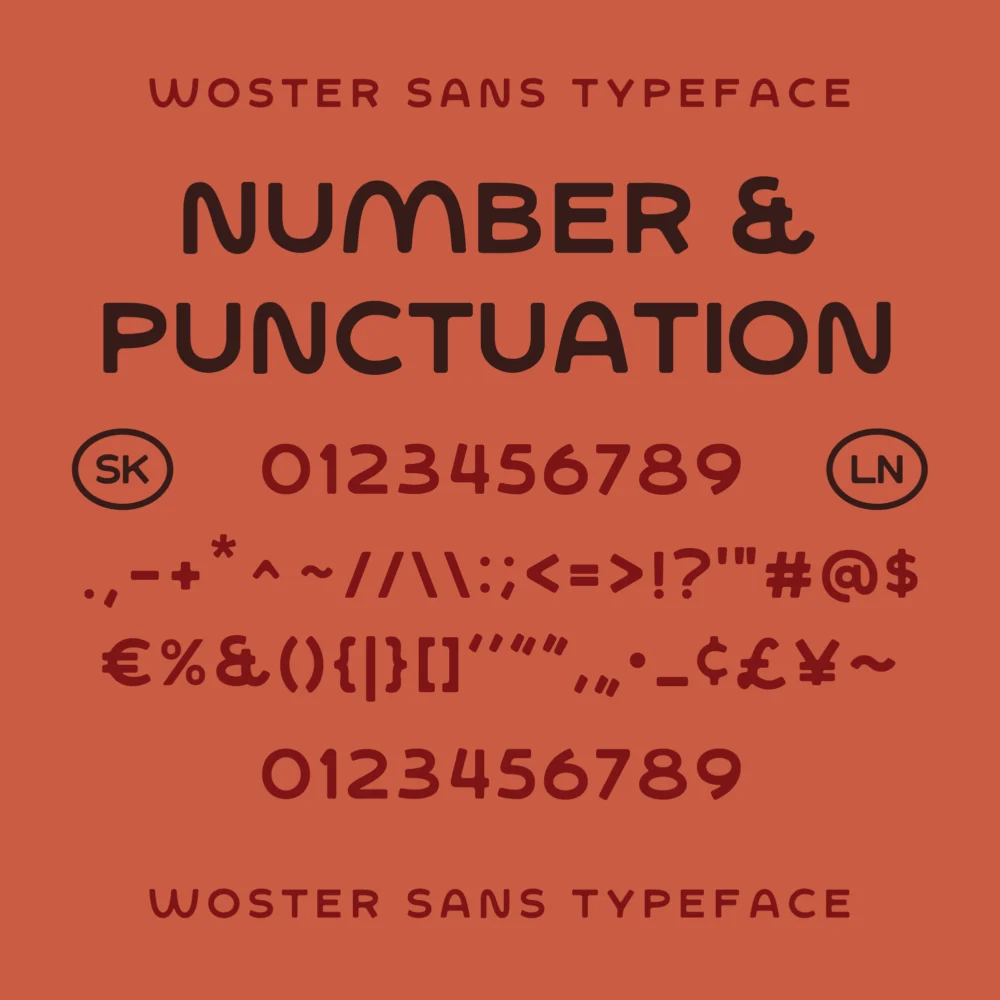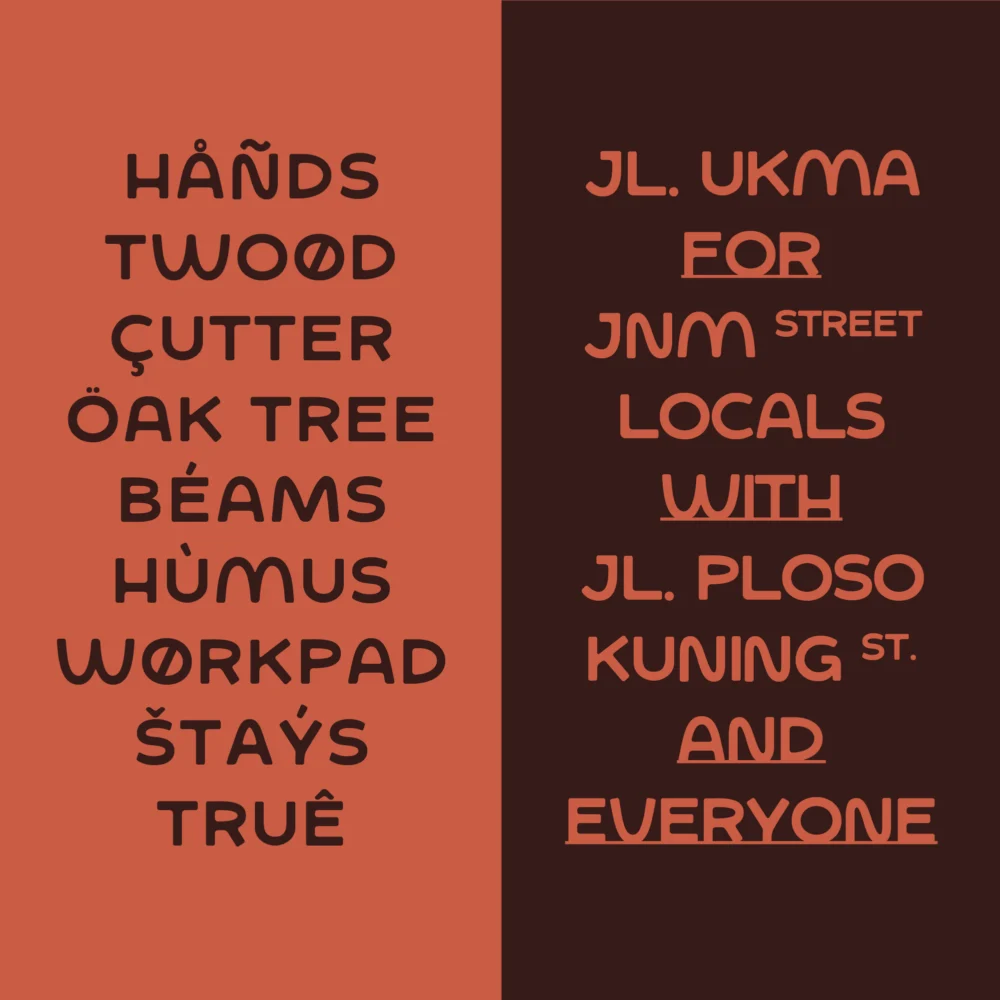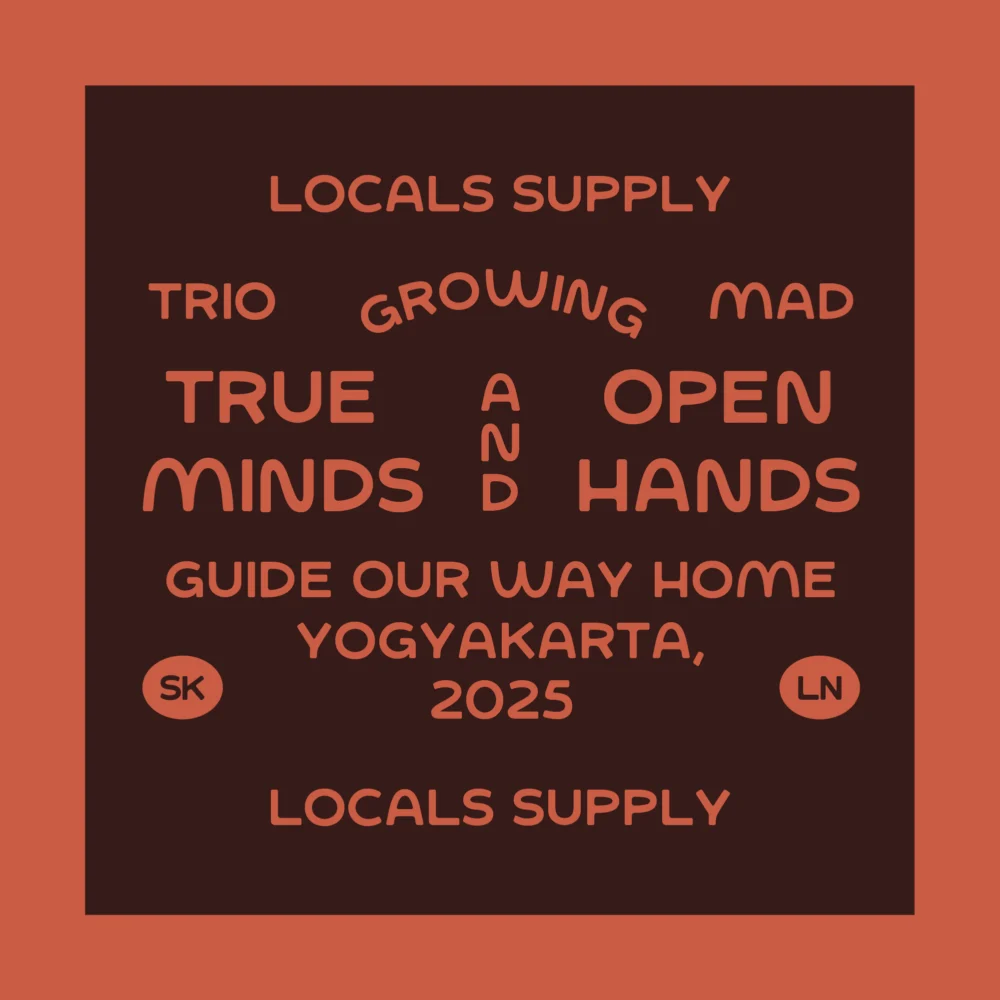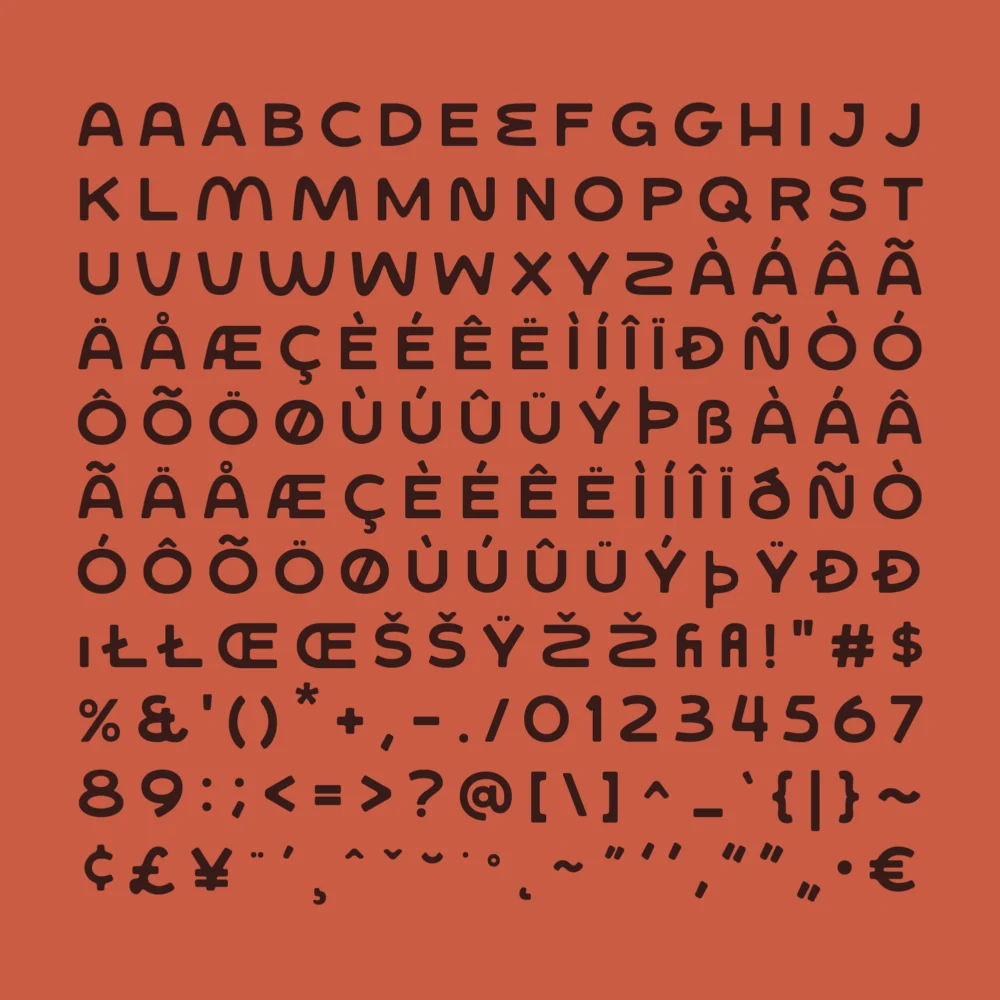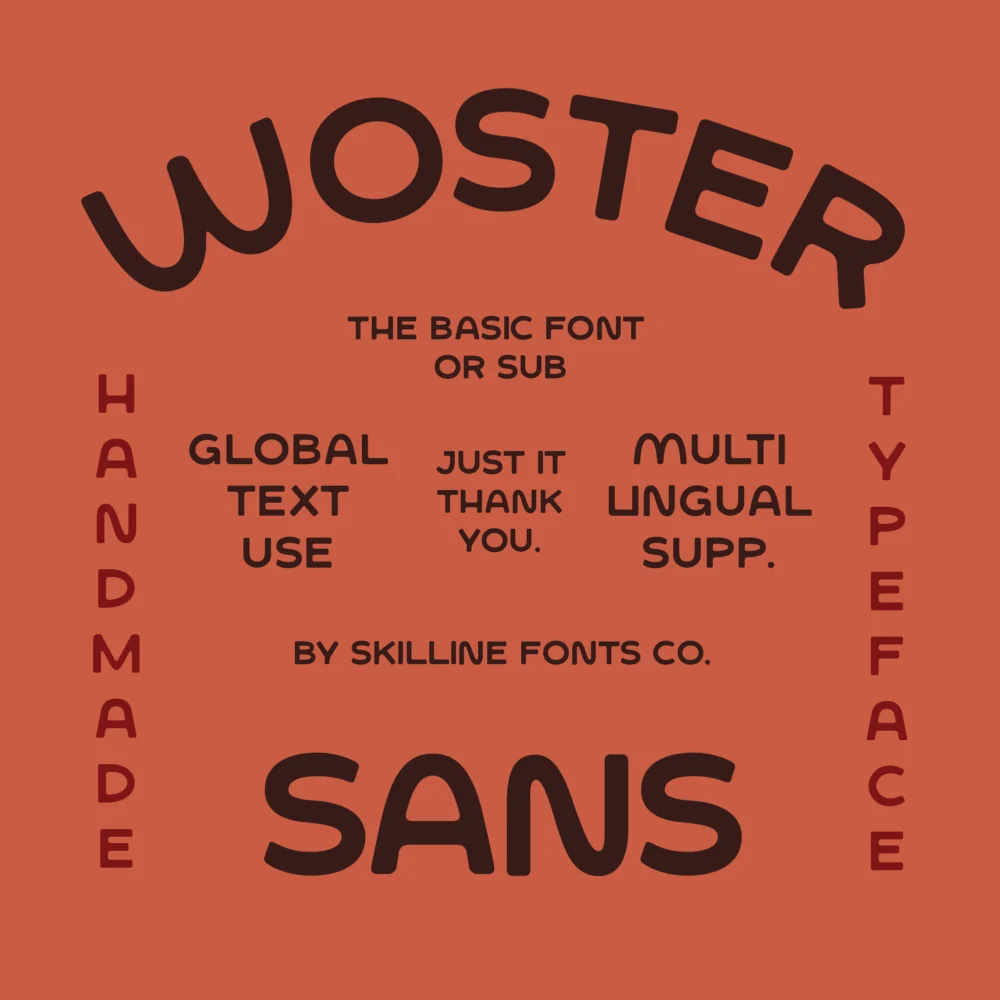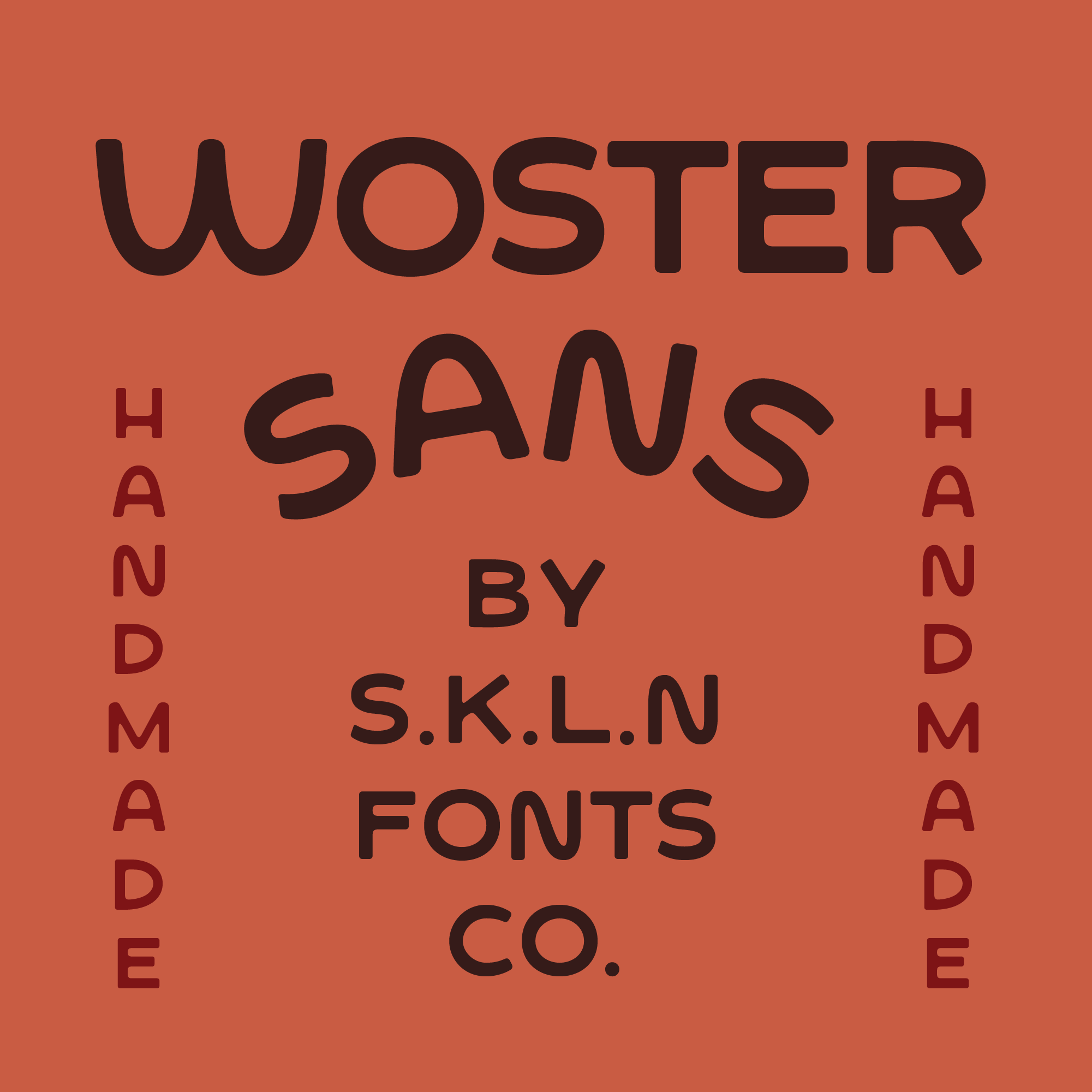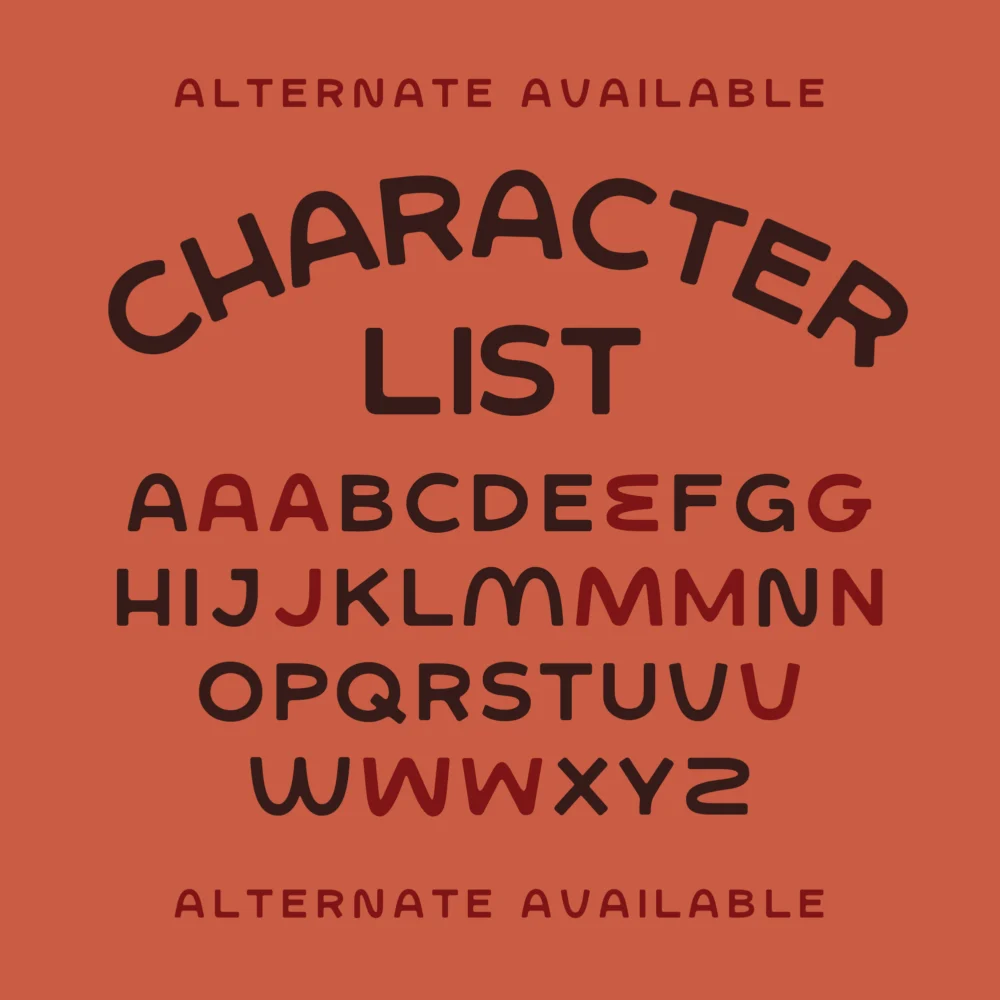
SFC Woster Sans
Woster Sans is a handmade display sans serif featuring warm organic curves, playful character, and a friendly handcrafted feel. Its rounded shapes and smooth flow bring a relaxed, expressive personality while remaining clean and highly readable,perfect for designs that balance creativity and usability.
Ideal Applications for SFC Woster Sans Typeface
• Playful & handcrafted branding
• Posters & editorial headings
• Apparel & lifestyle merchandise
• Coffee shops & artisanal packaging
• Whimsical logos & signage
• Social media graphics
• Children’s projects & educational materials
• All Caps Typeface
• Smooth Curves & Organic Shapes
• Basic Numerals & Punctuation